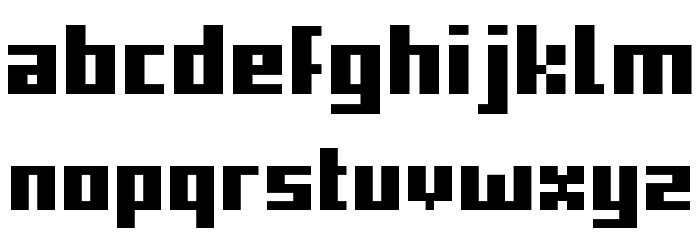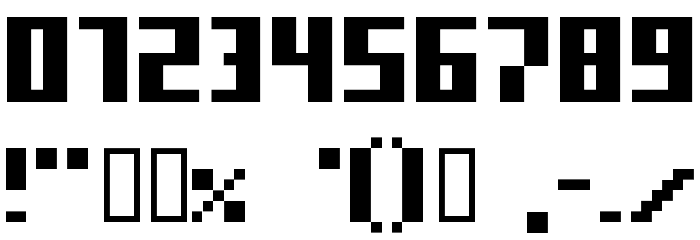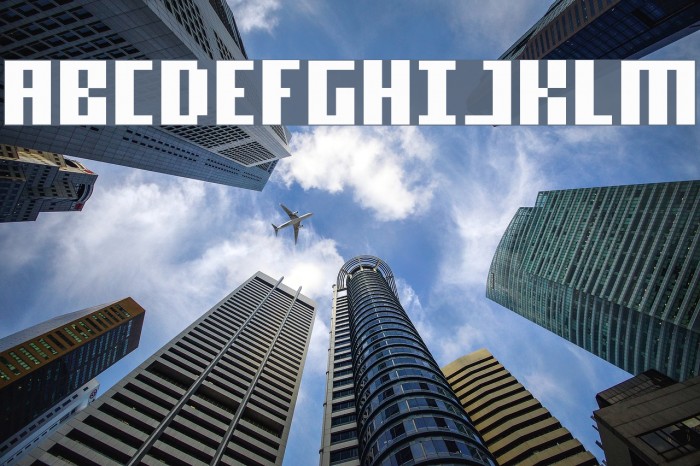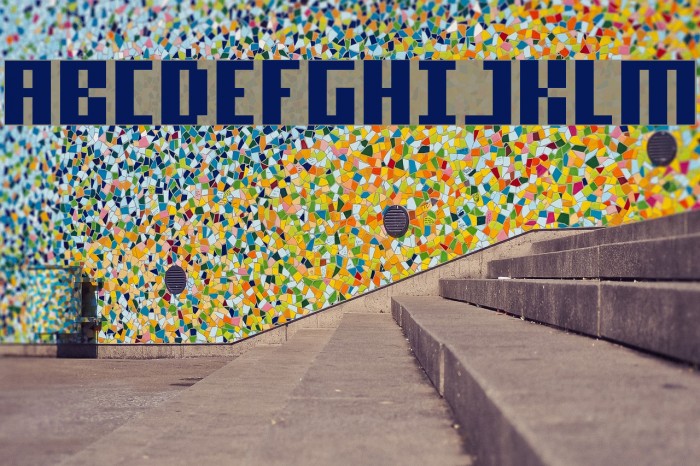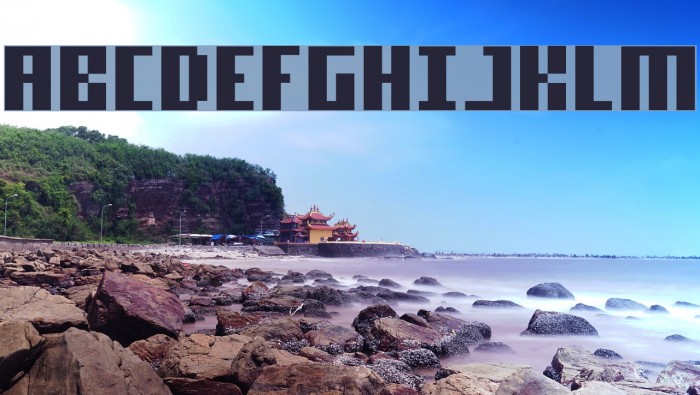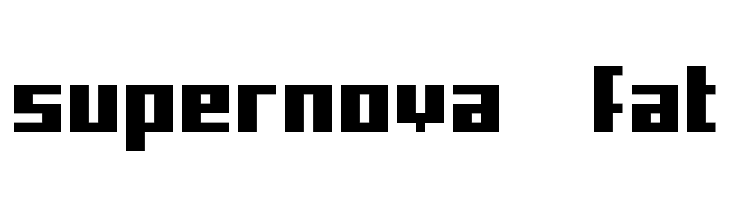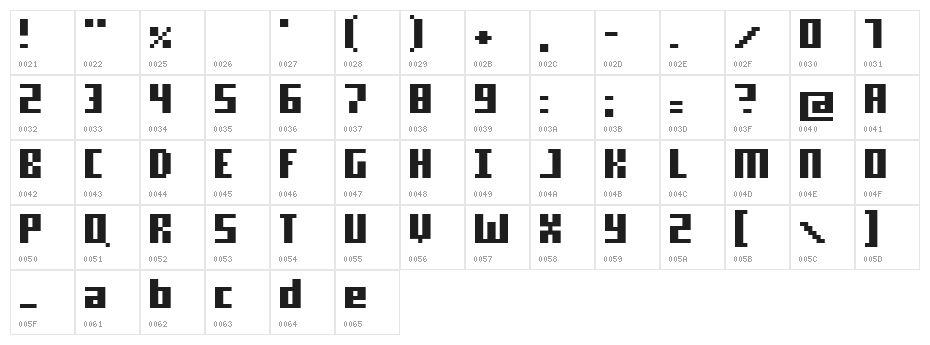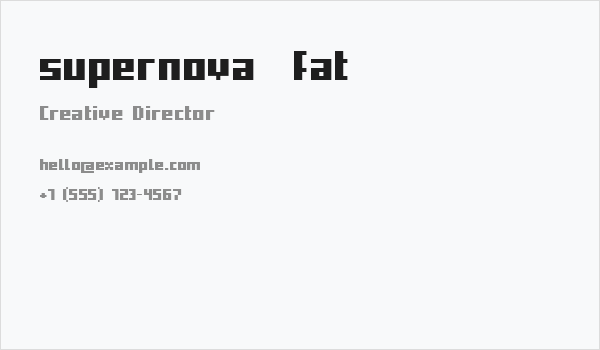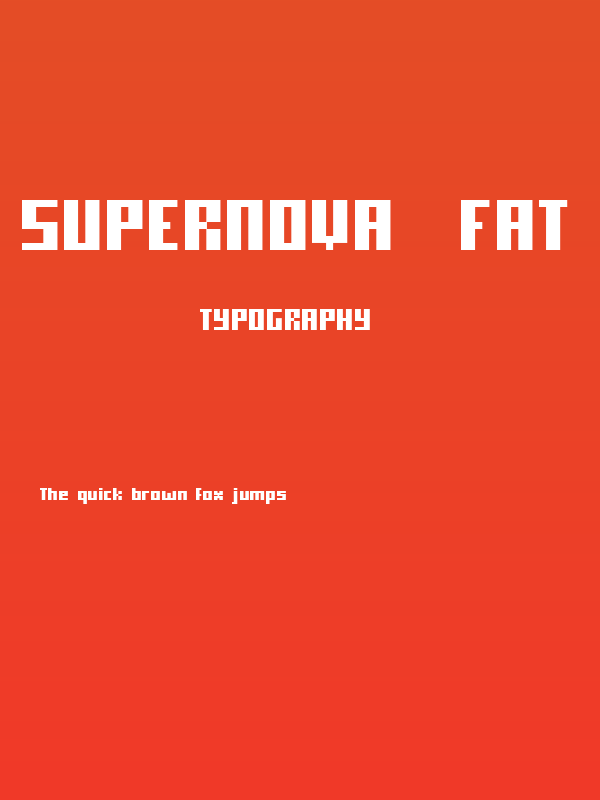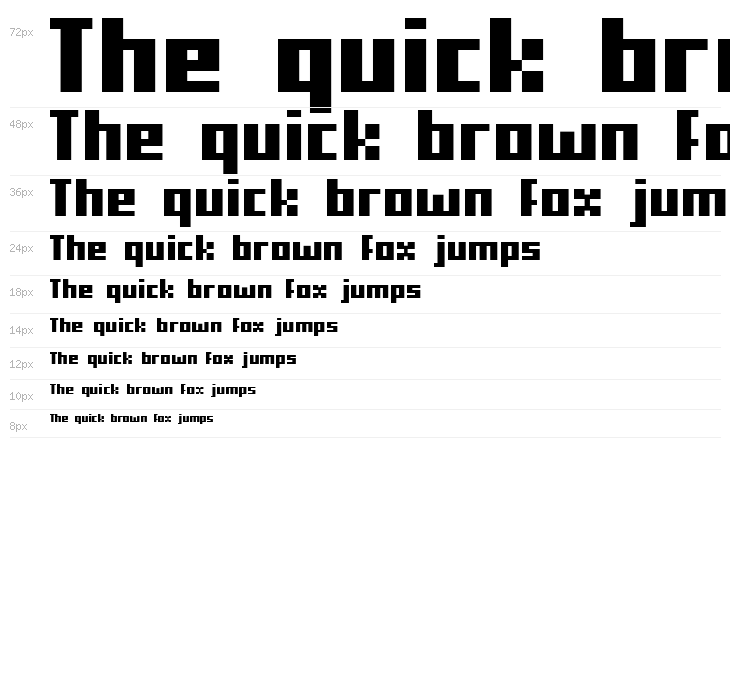
supernova fat Font
This font features a bold, geometric style with a strong presence. The characters are constructed with thick, block-like forms that give it a robust and modern appearance. The uppercase and lowercase letters maintain a consistent width, creating a uniform look across the alphabet. The numbers and special characters follow the same design principles, ensuring a cohesive visual identity. The font's design is reminiscent of digital or pixelated styles, making it suitable for projects that require a futuristic or tech-oriented aesthetic. Its boldness ensures high legibility, even at smaller sizes, while the geometric shapes add a unique flair.
A bold, geometric font with a modern, digital aesthetic.
- Proposed Projects: Ideal for tech branding, video game titles, digital interfaces, and modern posters.